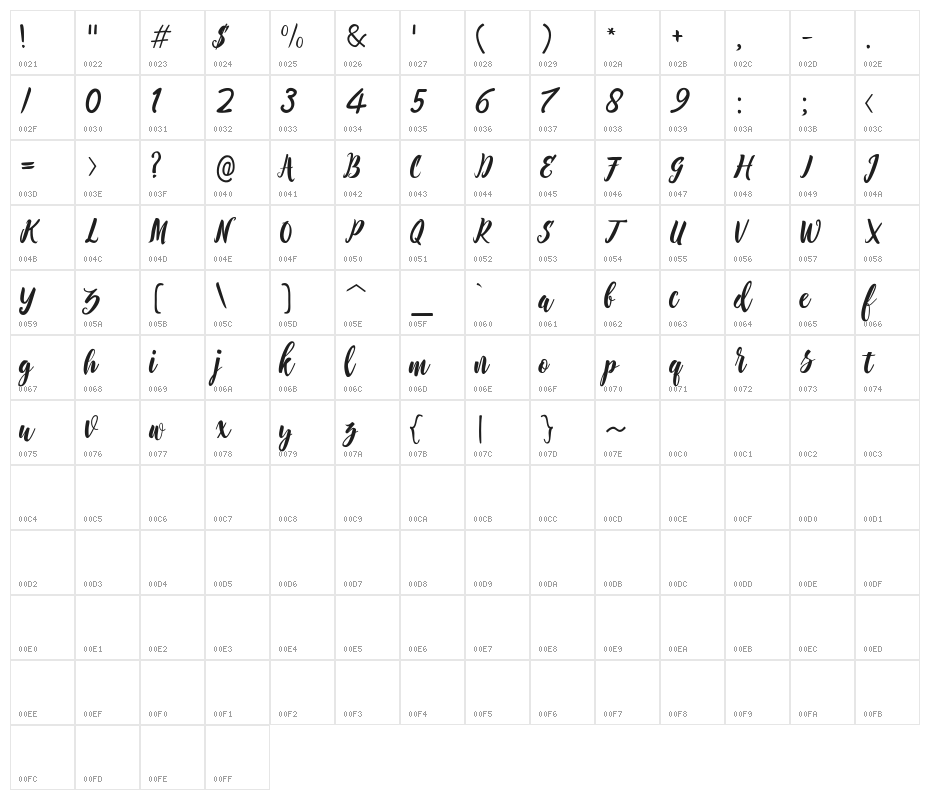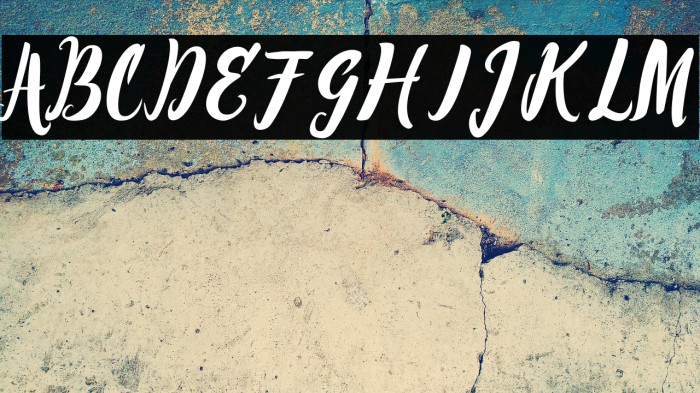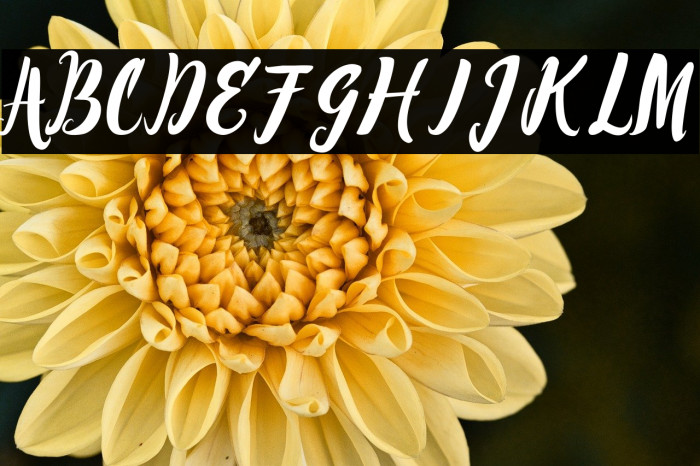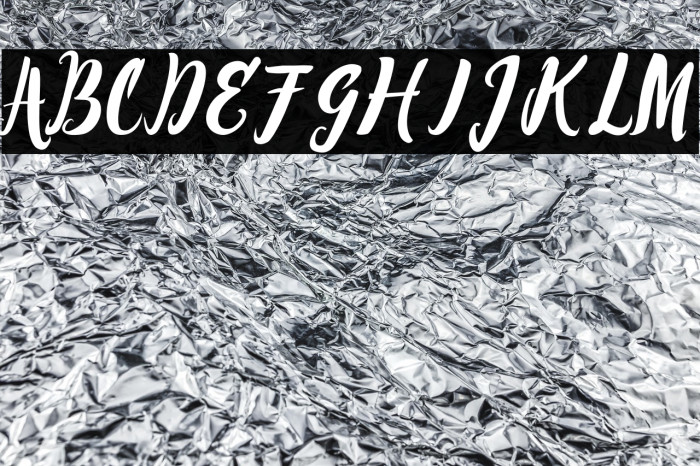
Barbarella Font
Barbarella Description
This font exudes a lively and dynamic script style, characterized by its fluid and cursive letterforms. The uppercase letters are bold and slightly slanted, giving a sense of movement and elegance. The lowercase letters maintain a consistent flow, with smooth connections between characters, enhancing readability while retaining a stylish flair. The numerals are well-proportioned and align harmoniously with the overall design. Special characters are crafted with the same attention to detail, ensuring they blend seamlessly with the alphabetic characters. This font's energetic and expressive nature makes it suitable for creative and artistic projects.